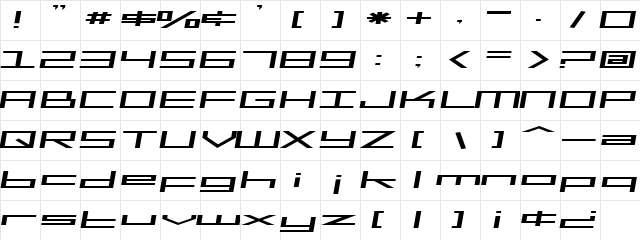
SF Square Head Extended Italic
Design Context for SF Square Head Extended Typeface
SF Square Head Extended offers clean, dependable letterforms without strong stylistic allegiance, making it a practical choice for designers who need flexibility. The slanted form adds forward momentum and visual energy.